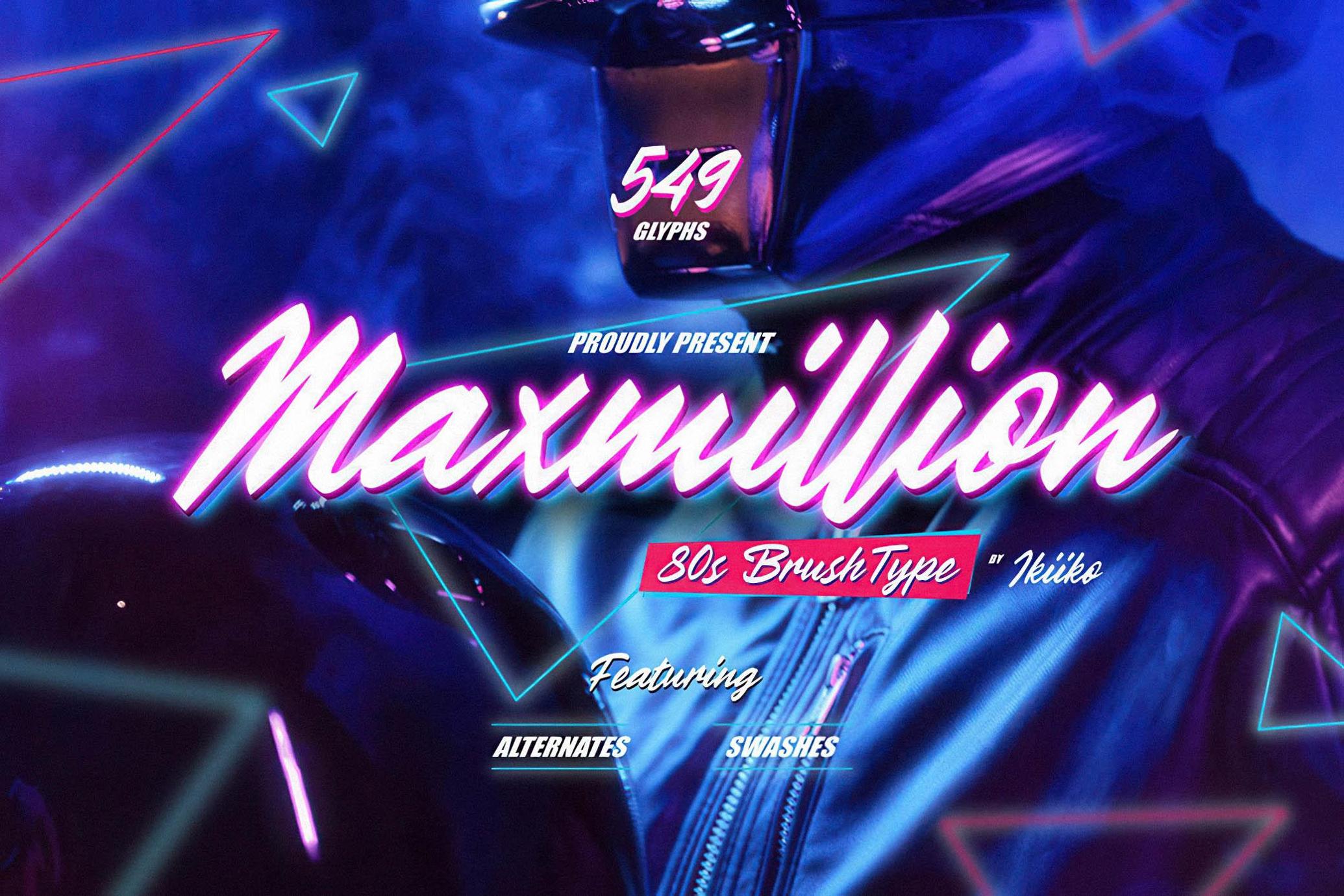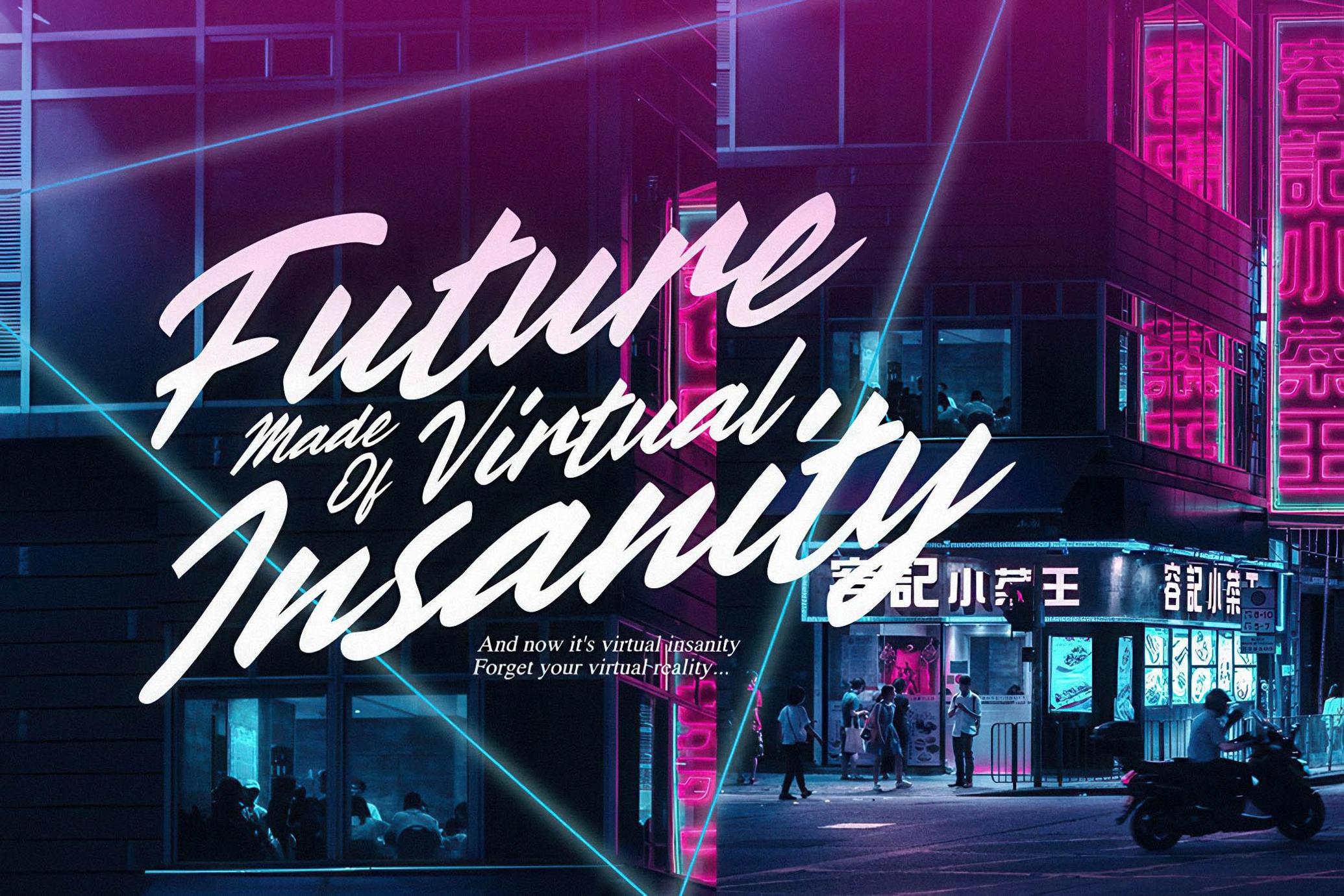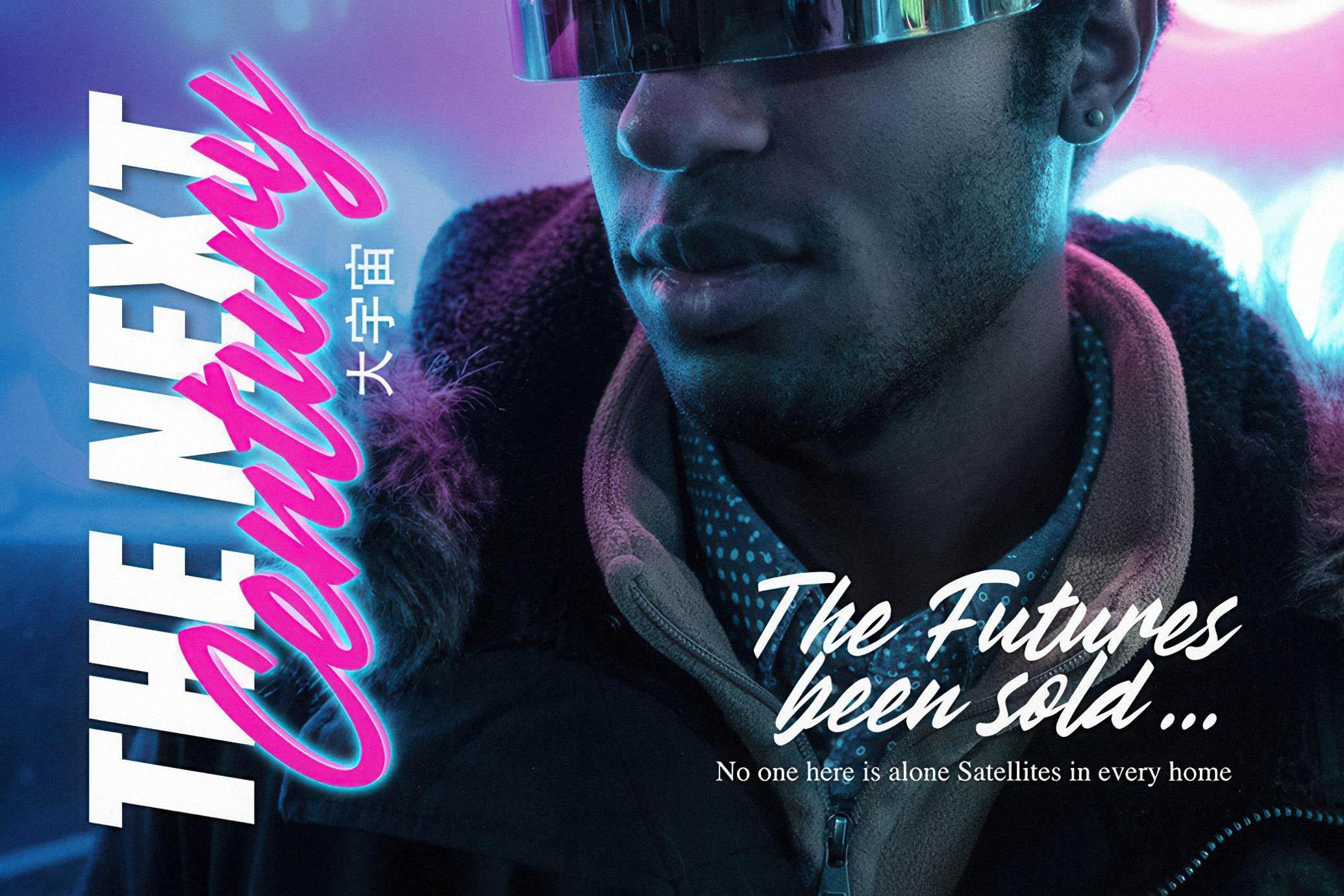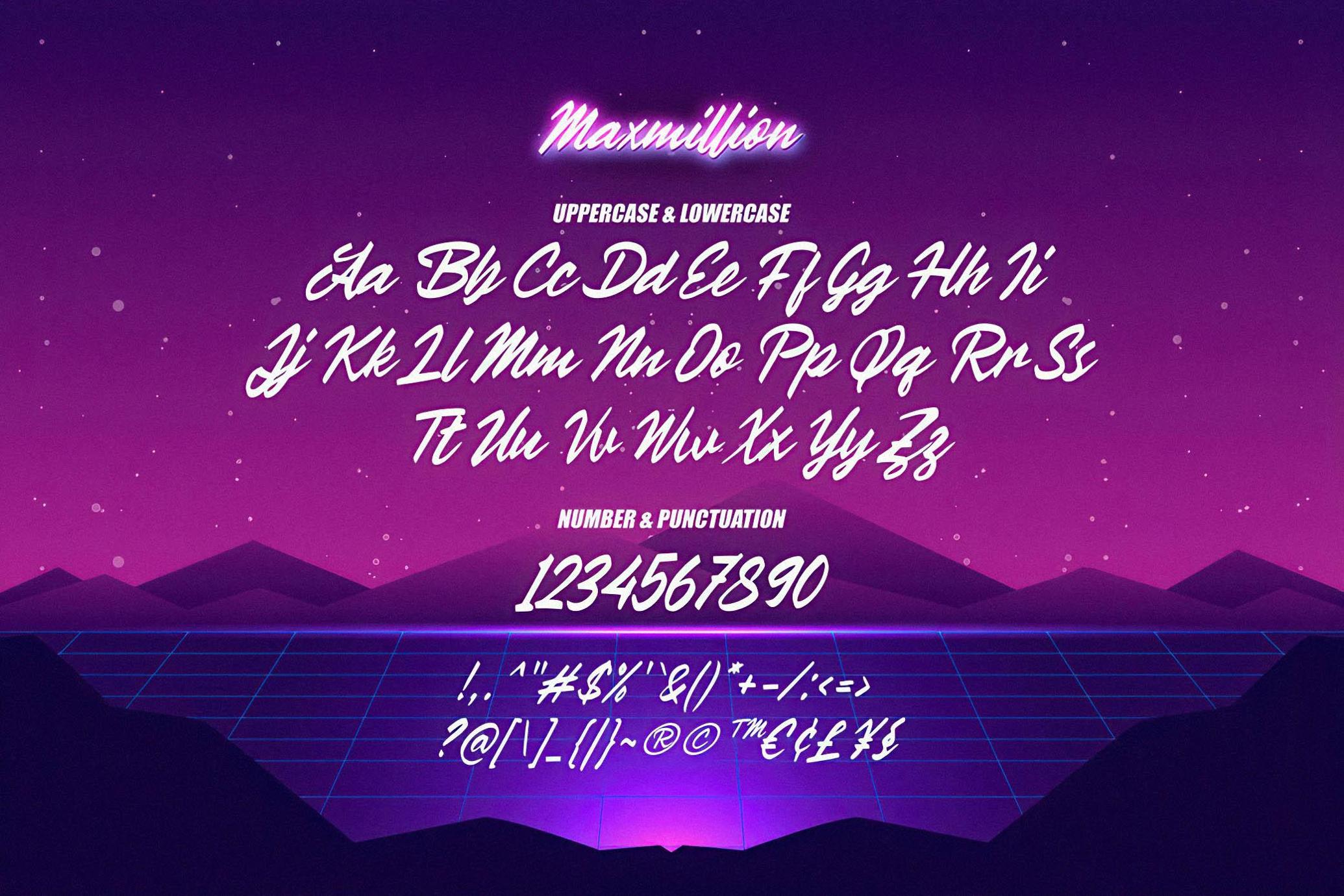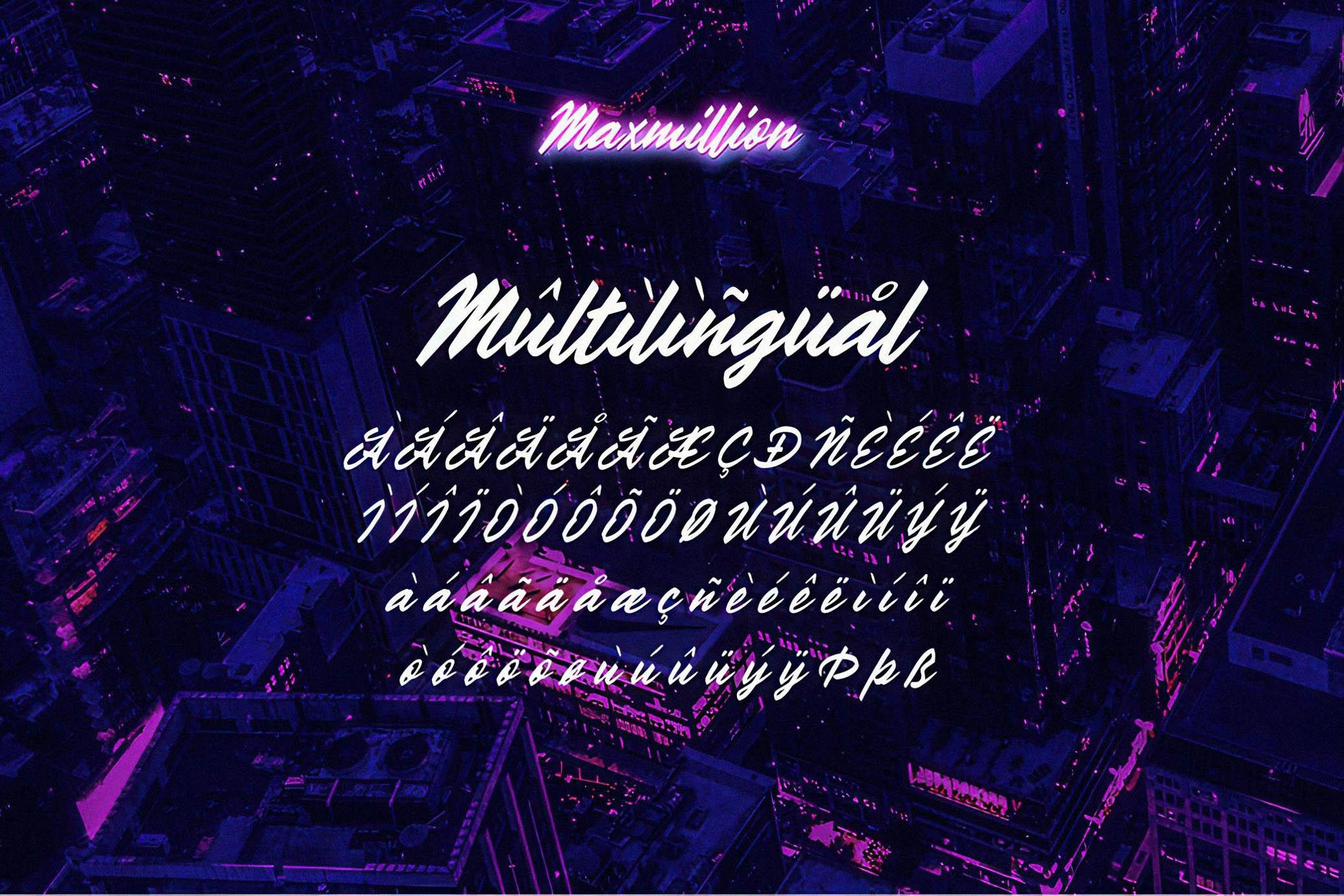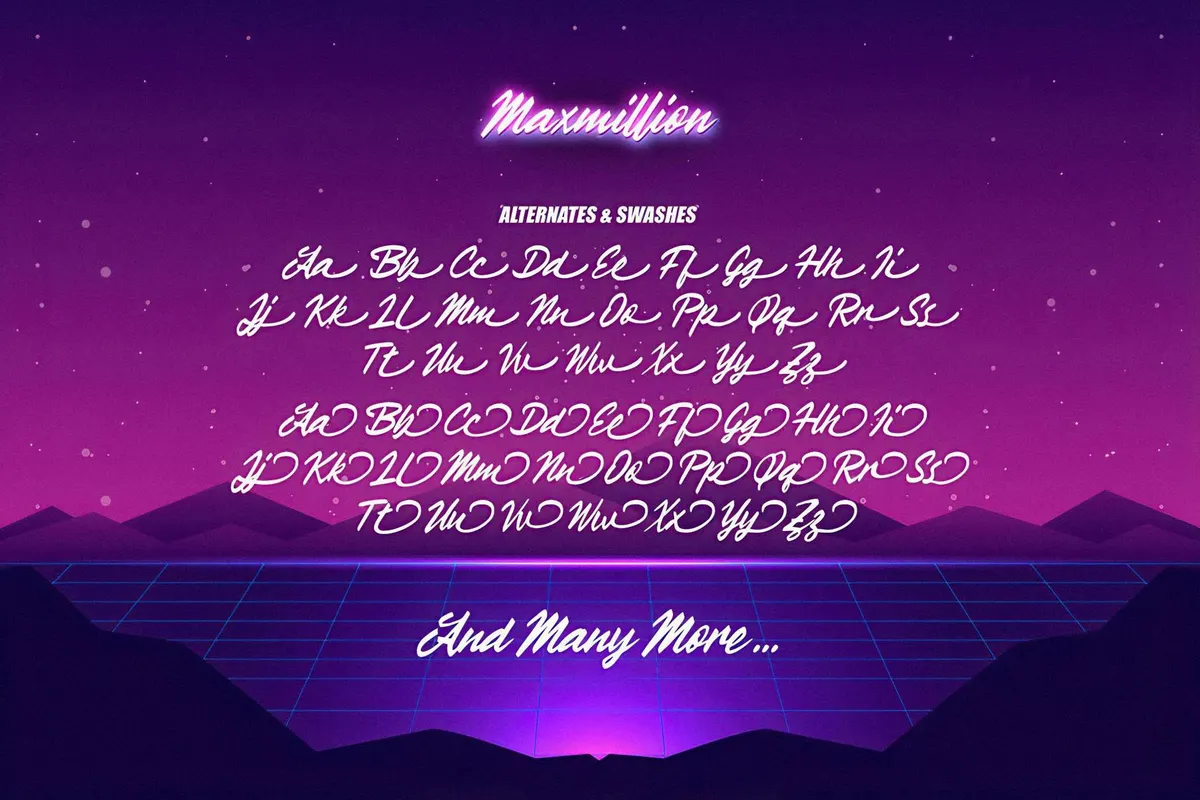
Maxmillion - 80's Brush Font
An expressive handwriting type with a modern and wild shape used 80's vibes. This type is very suitable for making a posters, t-shirt design, neon sign, party flyer, quotes, or simply as a stylish text overlay to any background image.
• Numbers & Punctuation
• Complete Alternates & Swashes